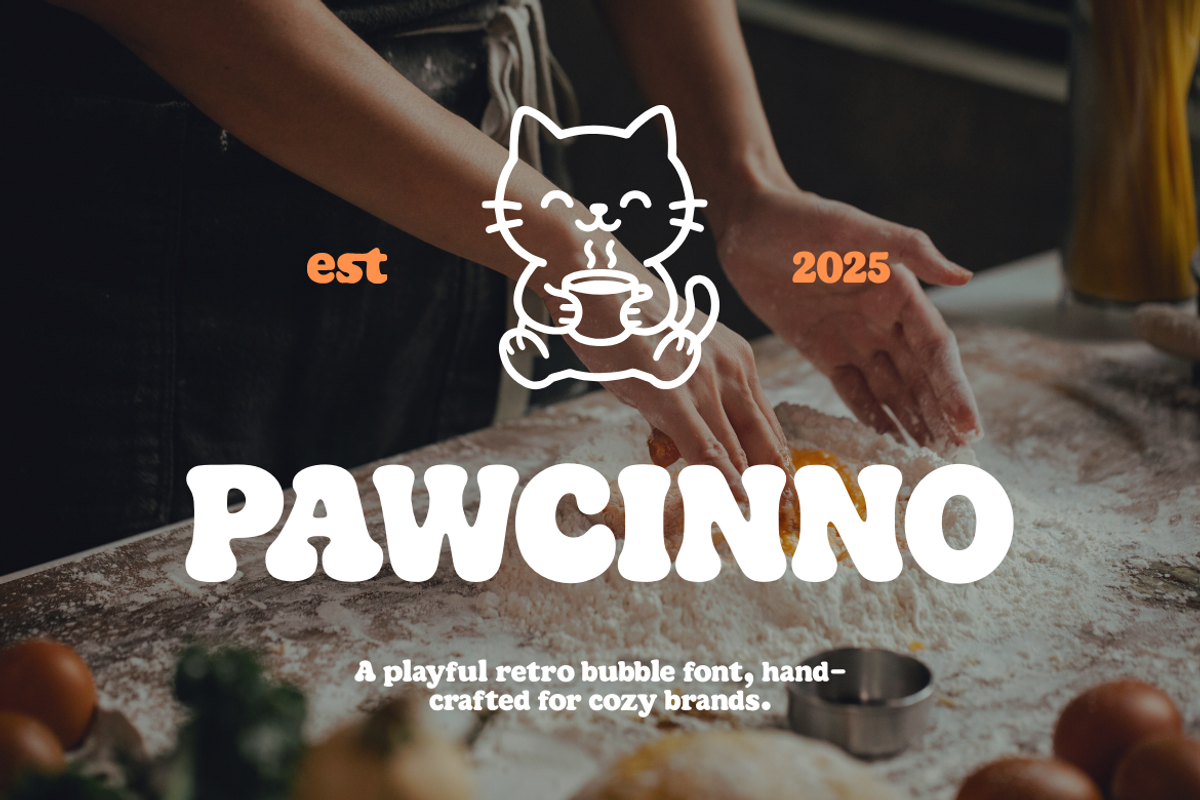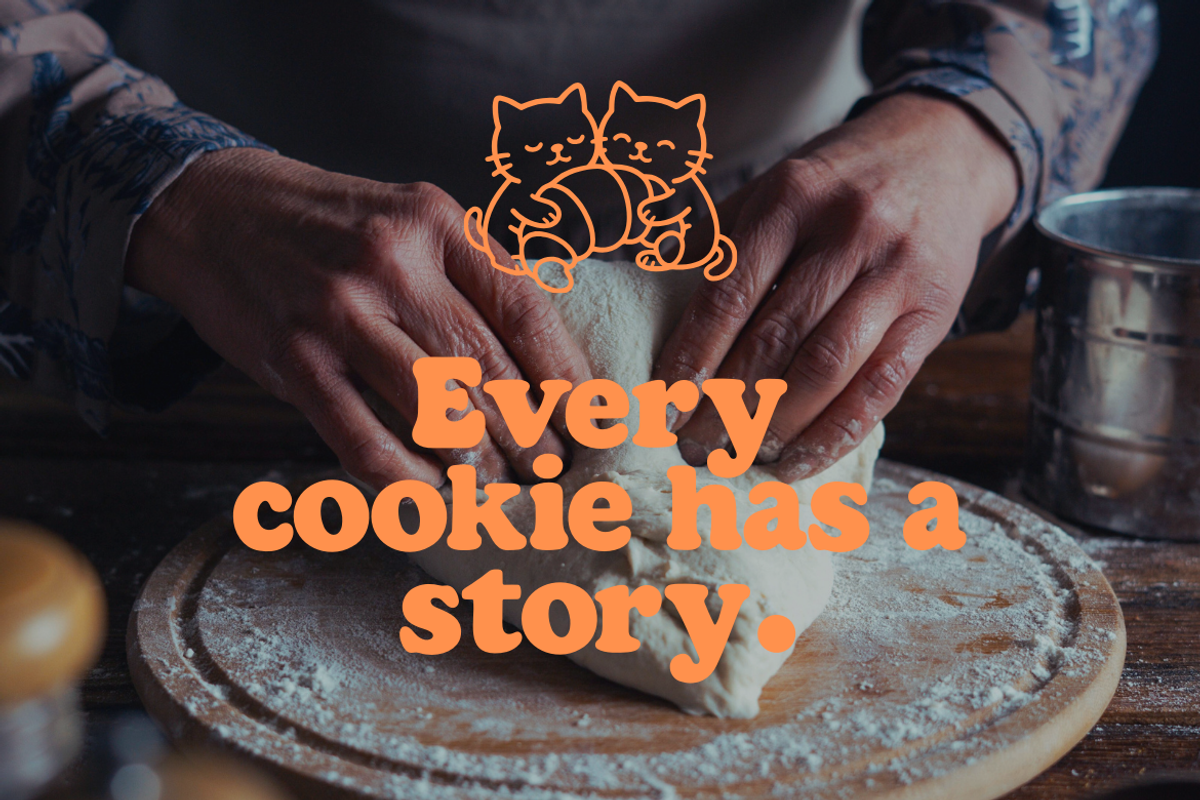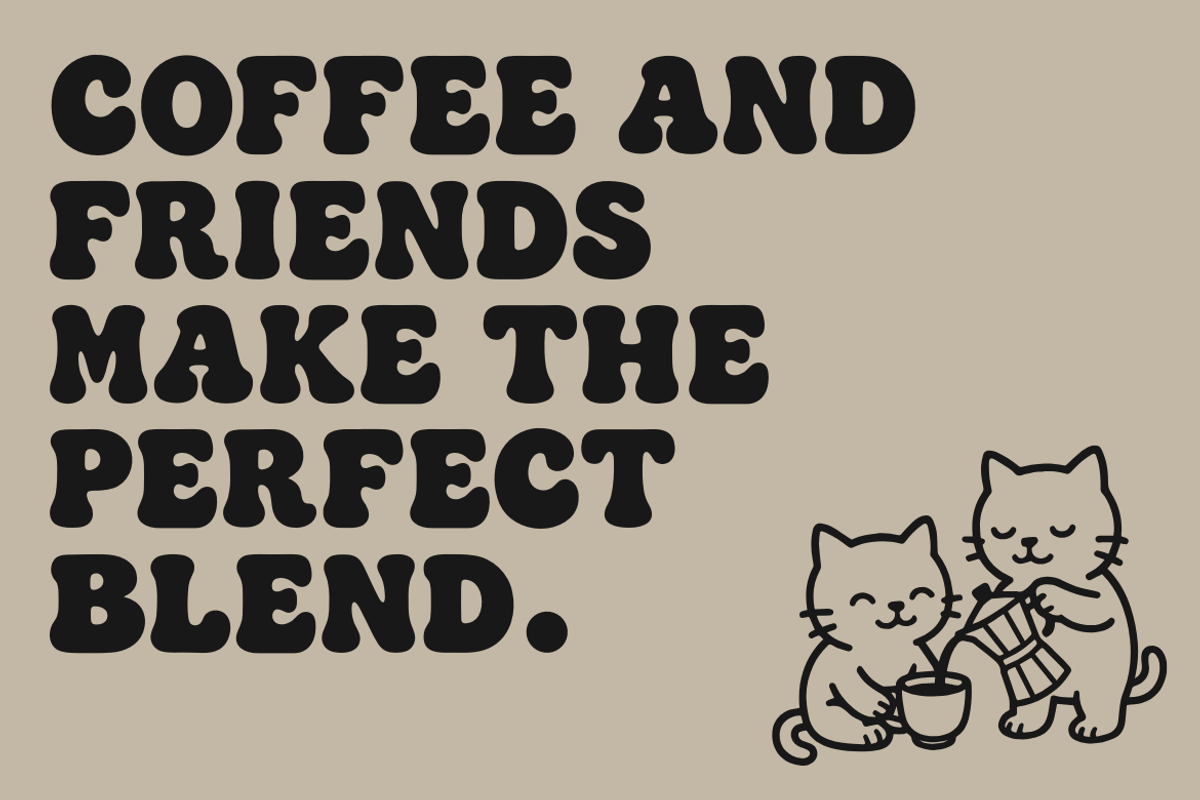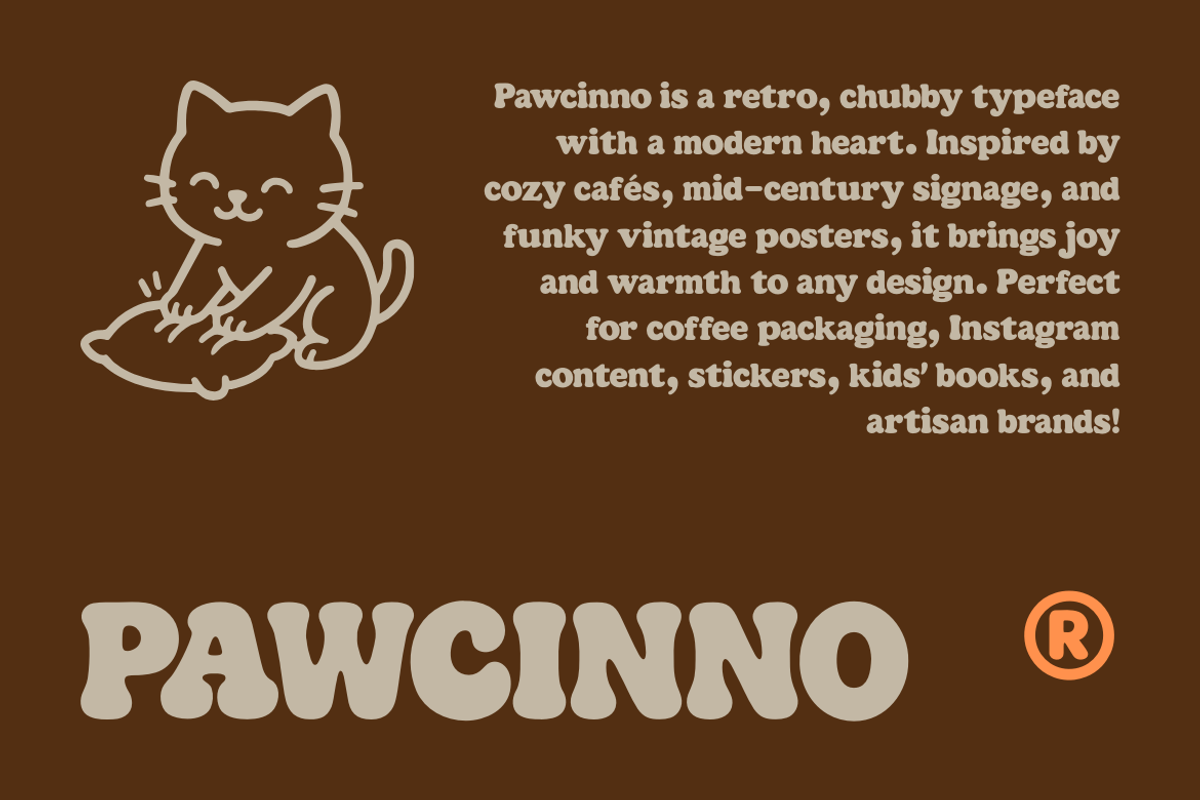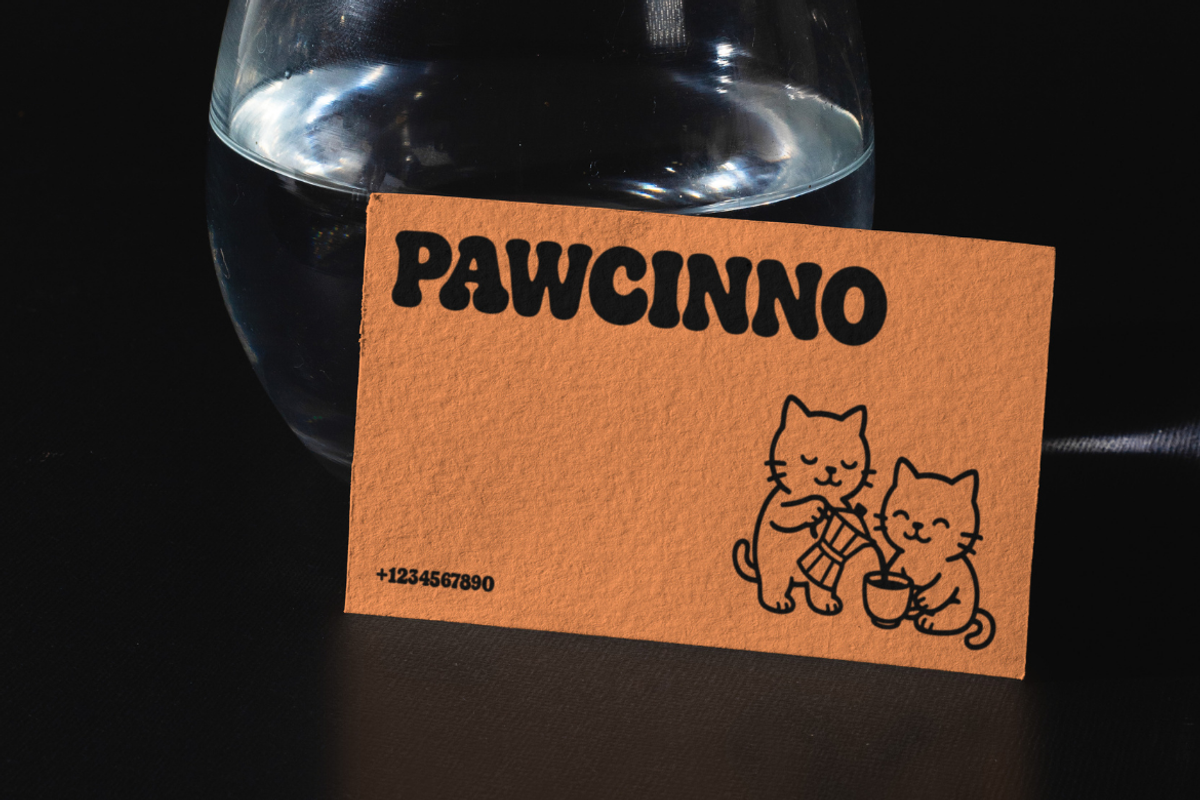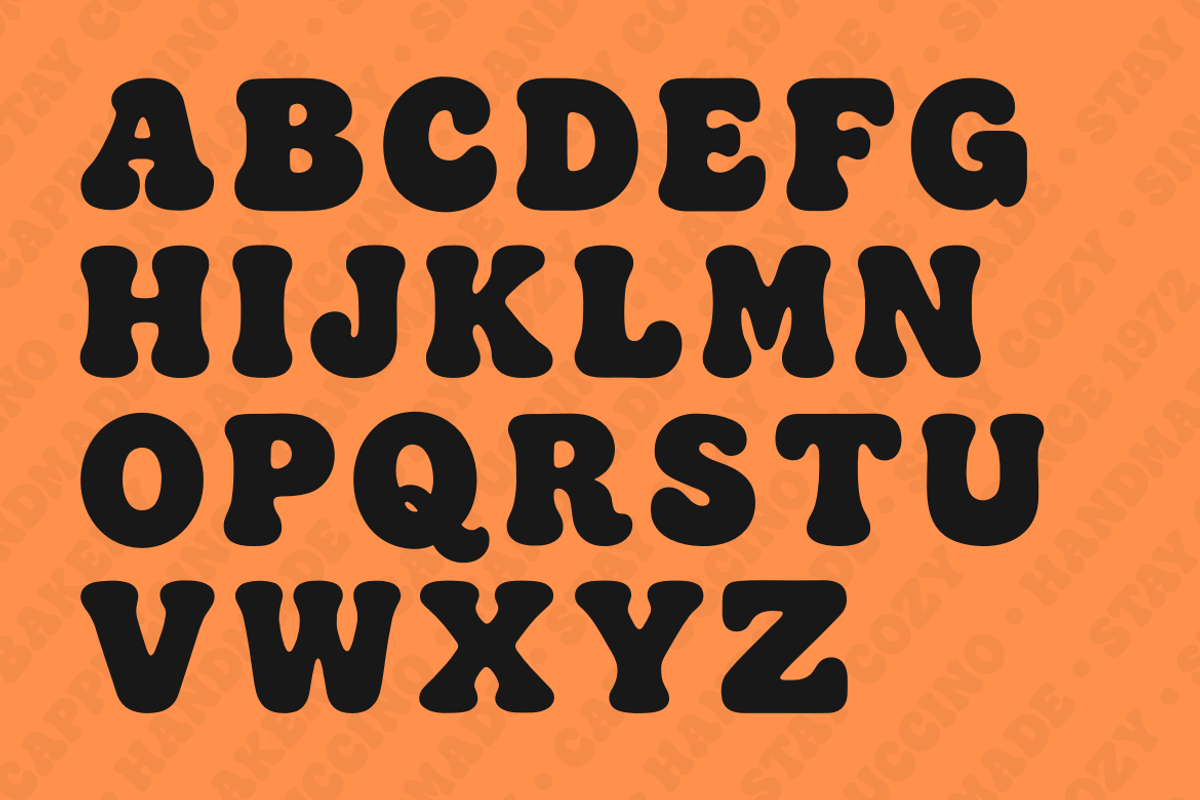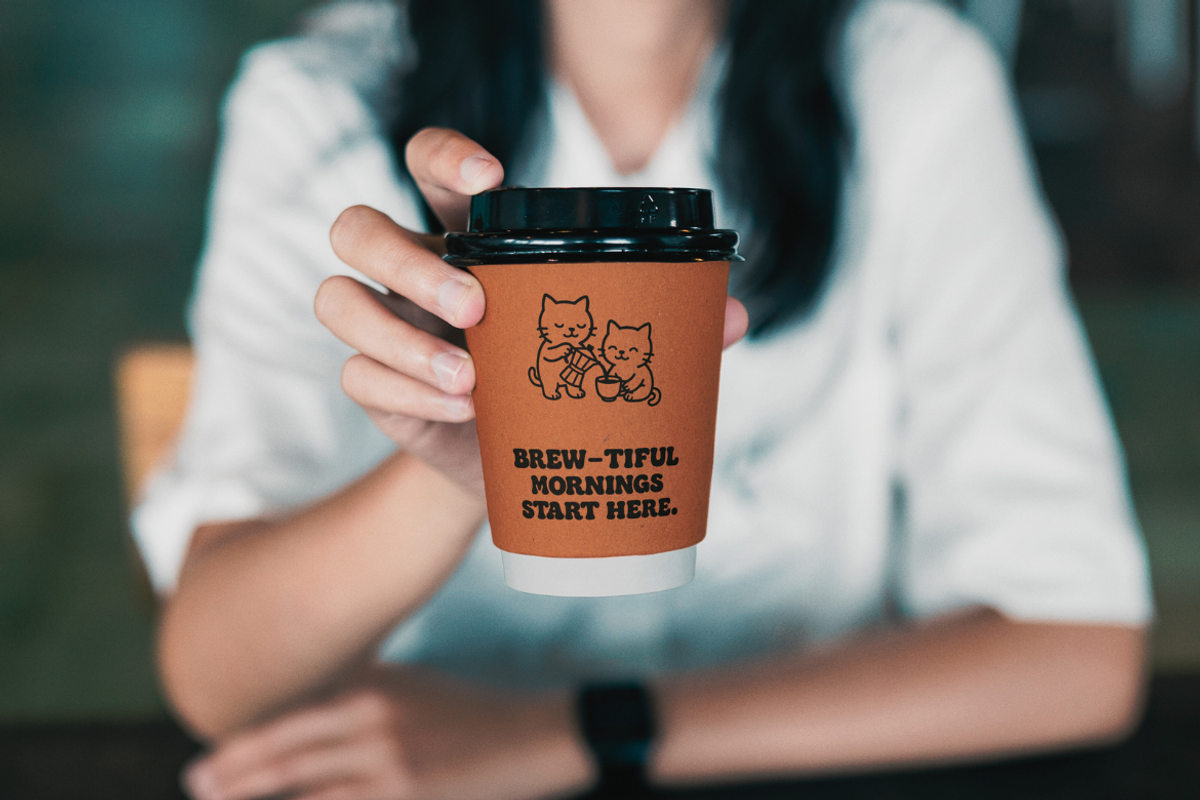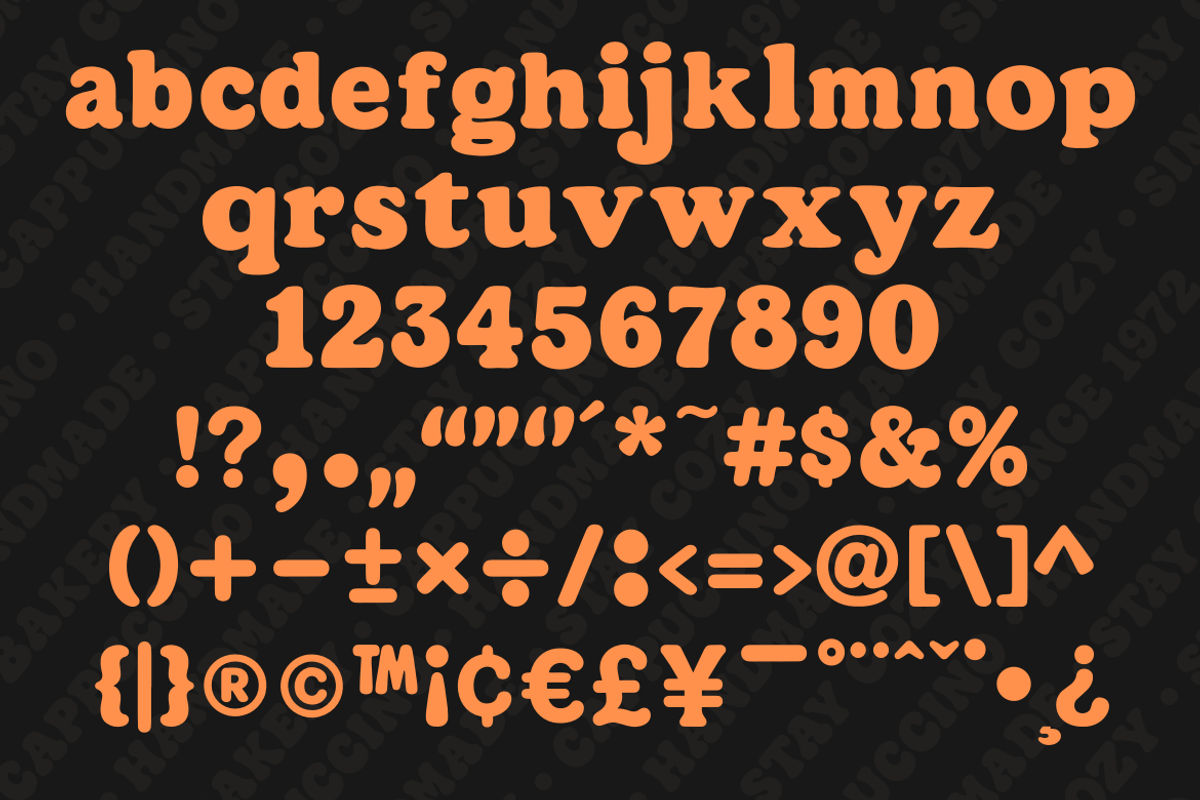
Pawcinno – Playful Retro Bubble Font
Pawcinno is a bold, bubbly display font inspired by the groovy aesthetics of 1970s poster typography and retro fruit packaging. With ultra-chubby letterforms, soft rounded terminals, and tight spacing, this typeface radiates a playful, nostalgic vibe that’s perfect for creative projects with a bold personality.
Each character is carefully crafted with minimal internal space and smooth contours, giving the font a friendly and approachable look. Pawcinno works beautifully for branding, children’s designs, café menus, packaging, social media posts, and any other project that needs a pop of fun and vintage charm.
Whether you're designing a funky headline or an eye-catching logo, Pawcinno brings retro playfulness with a modern twist.
Let your creativity flow with Pawcinno — where playful curves meet nostalgic vibes.